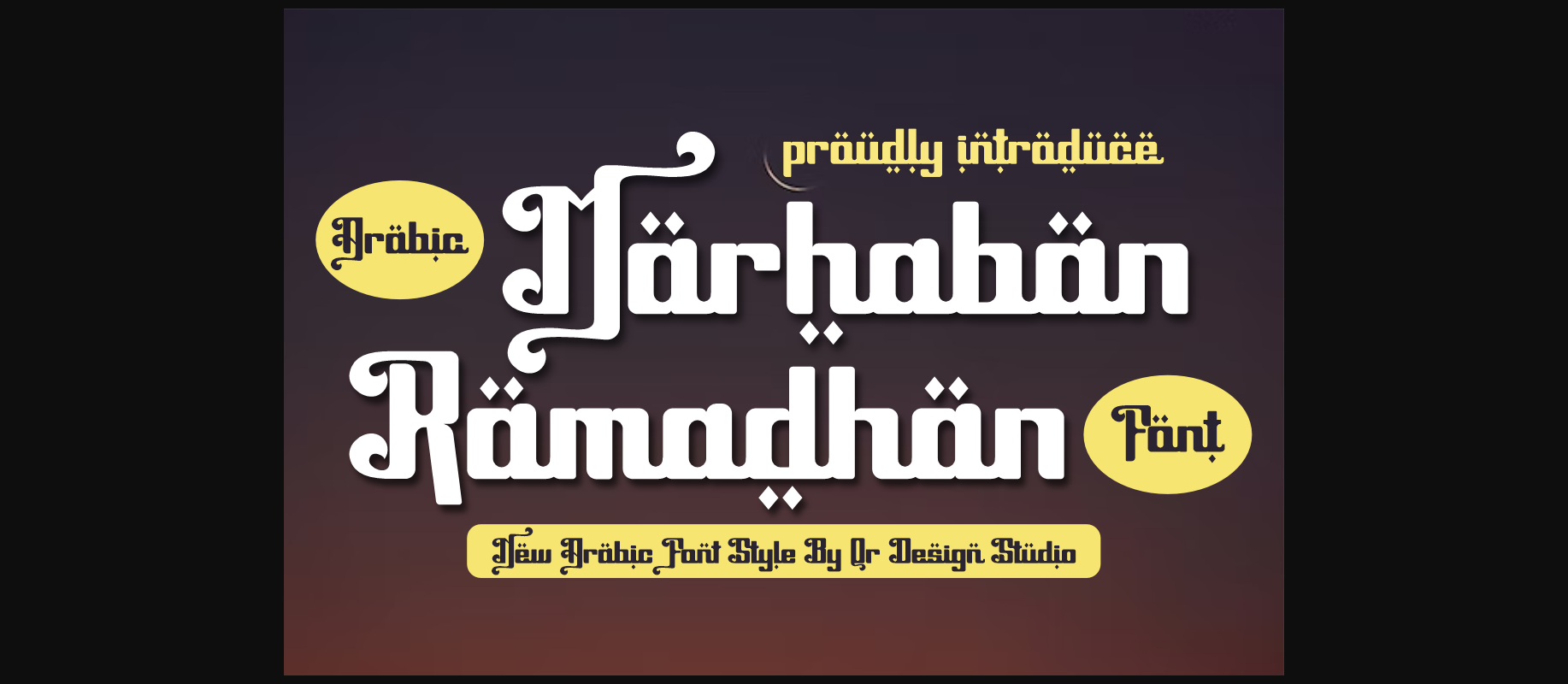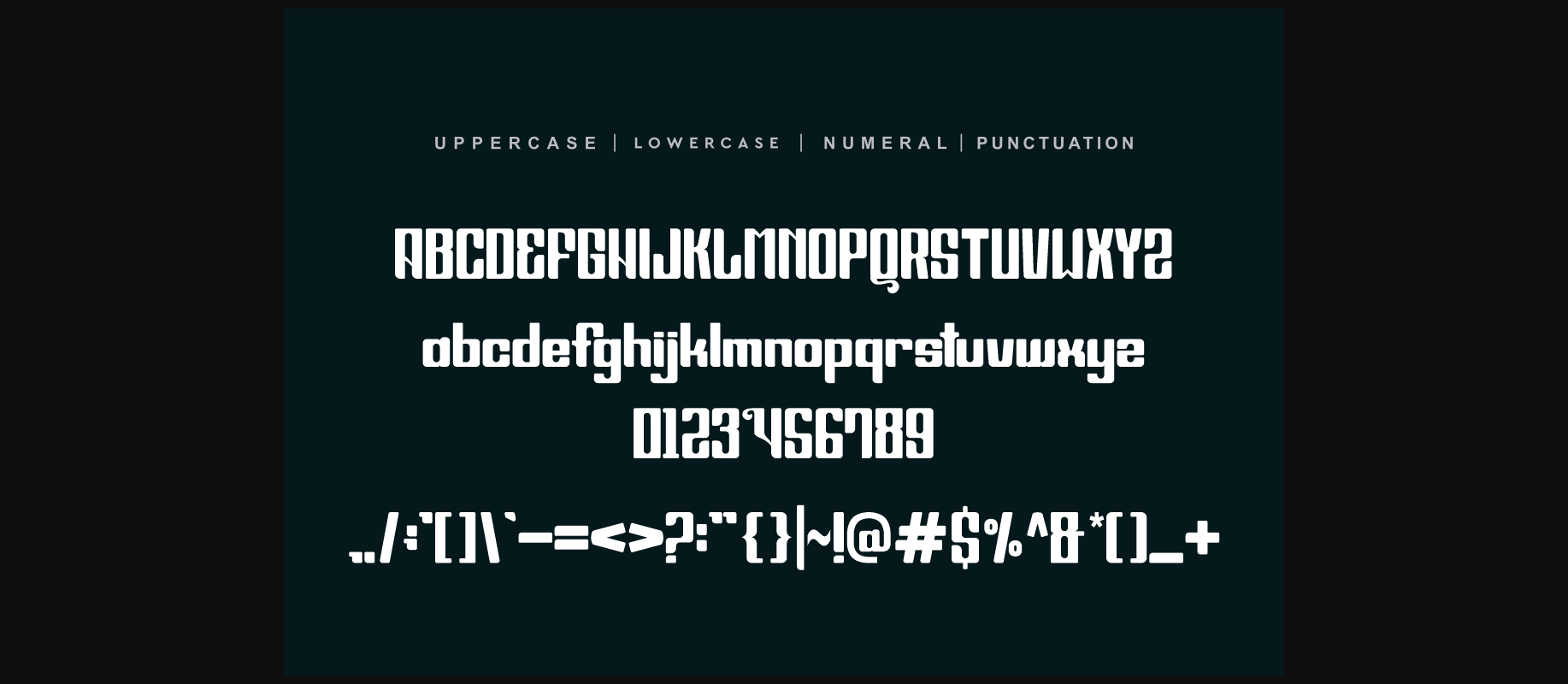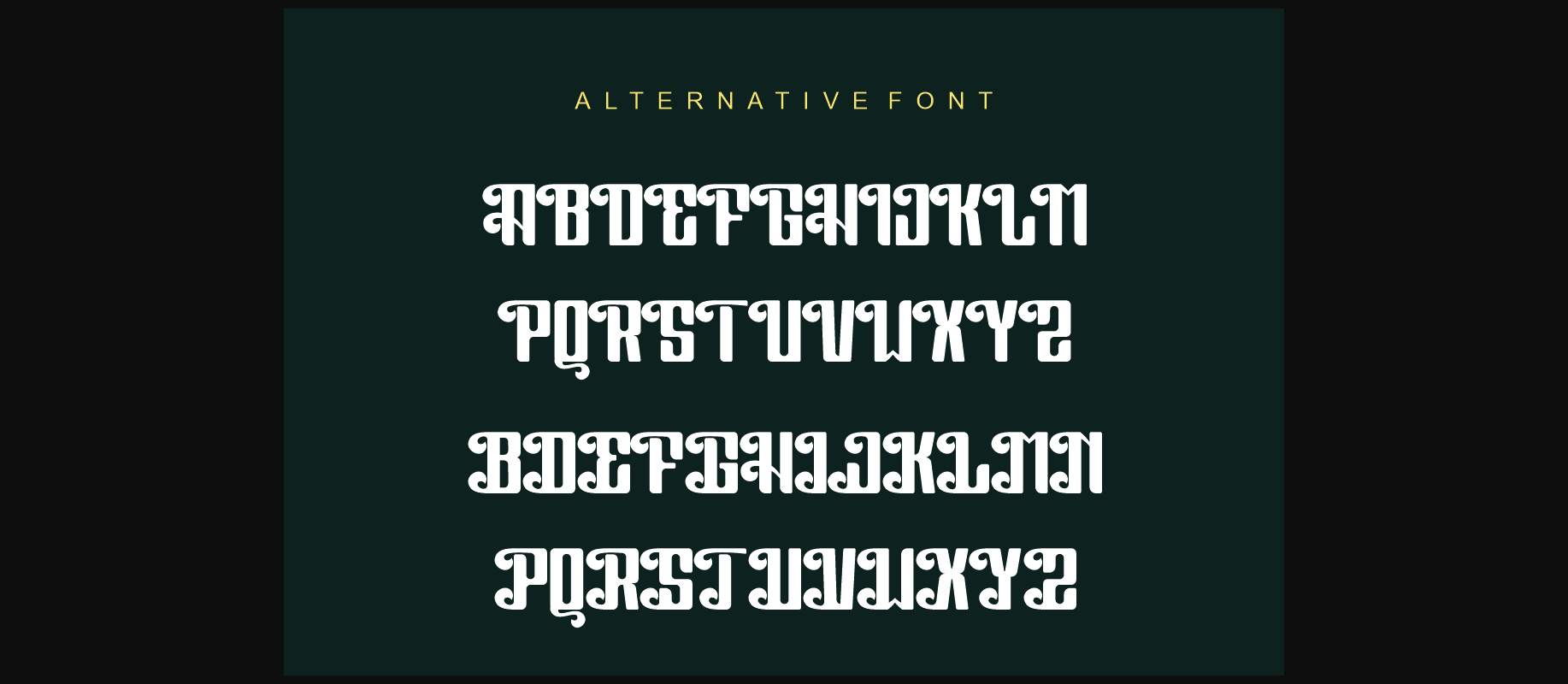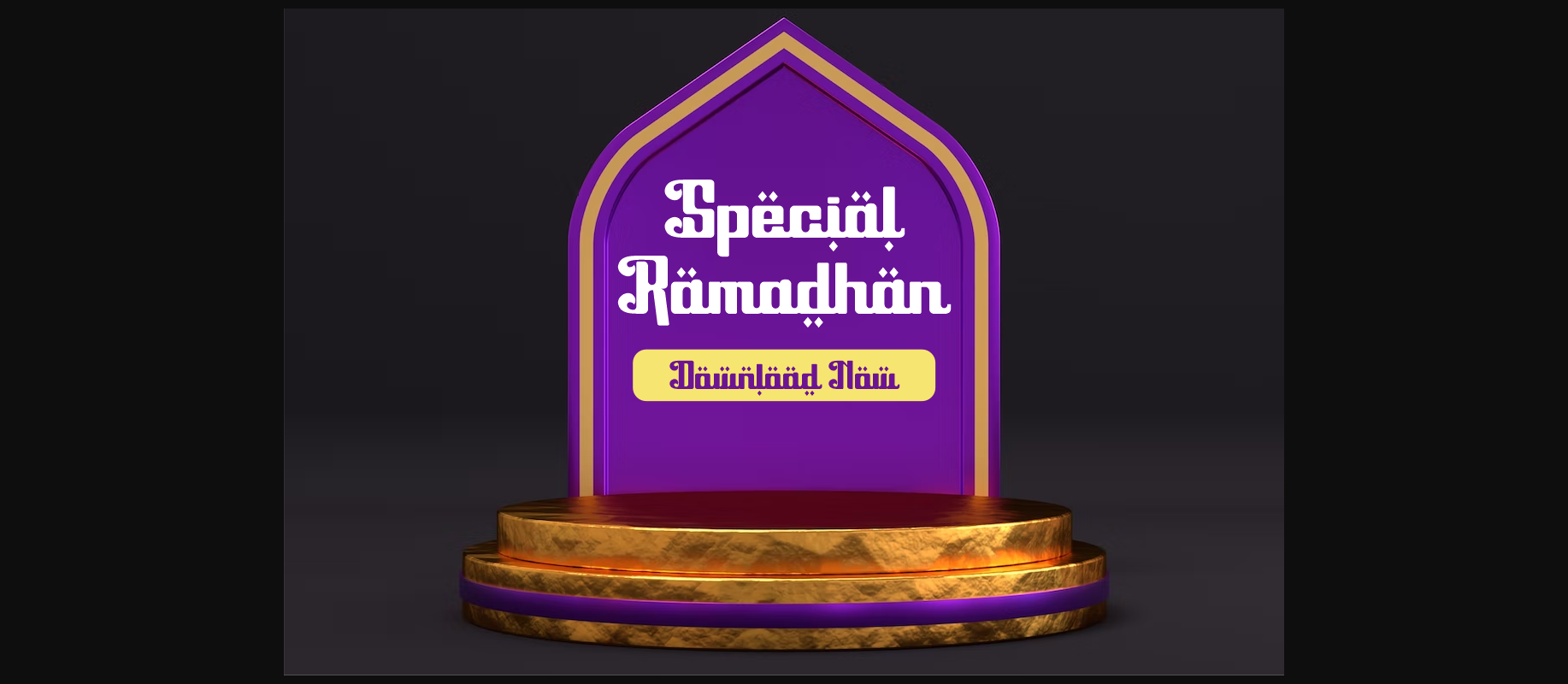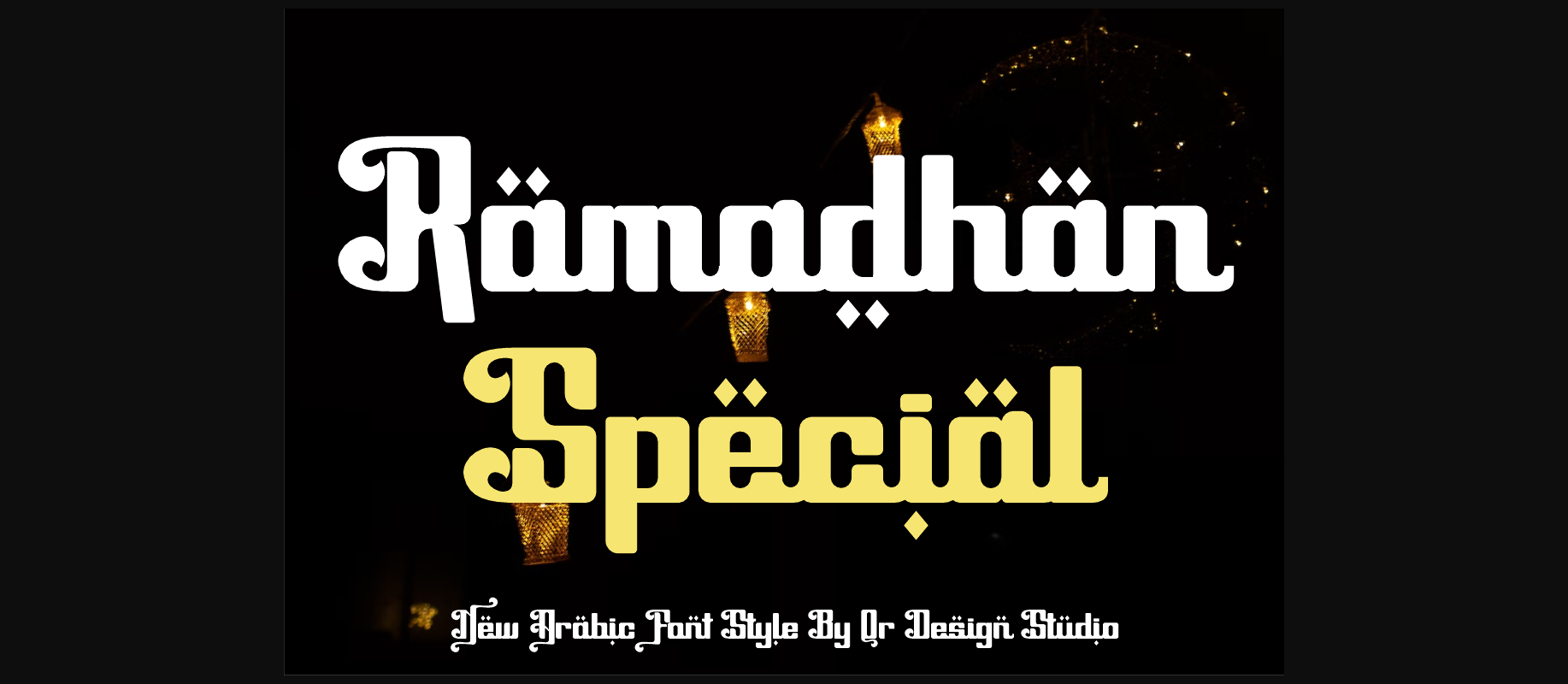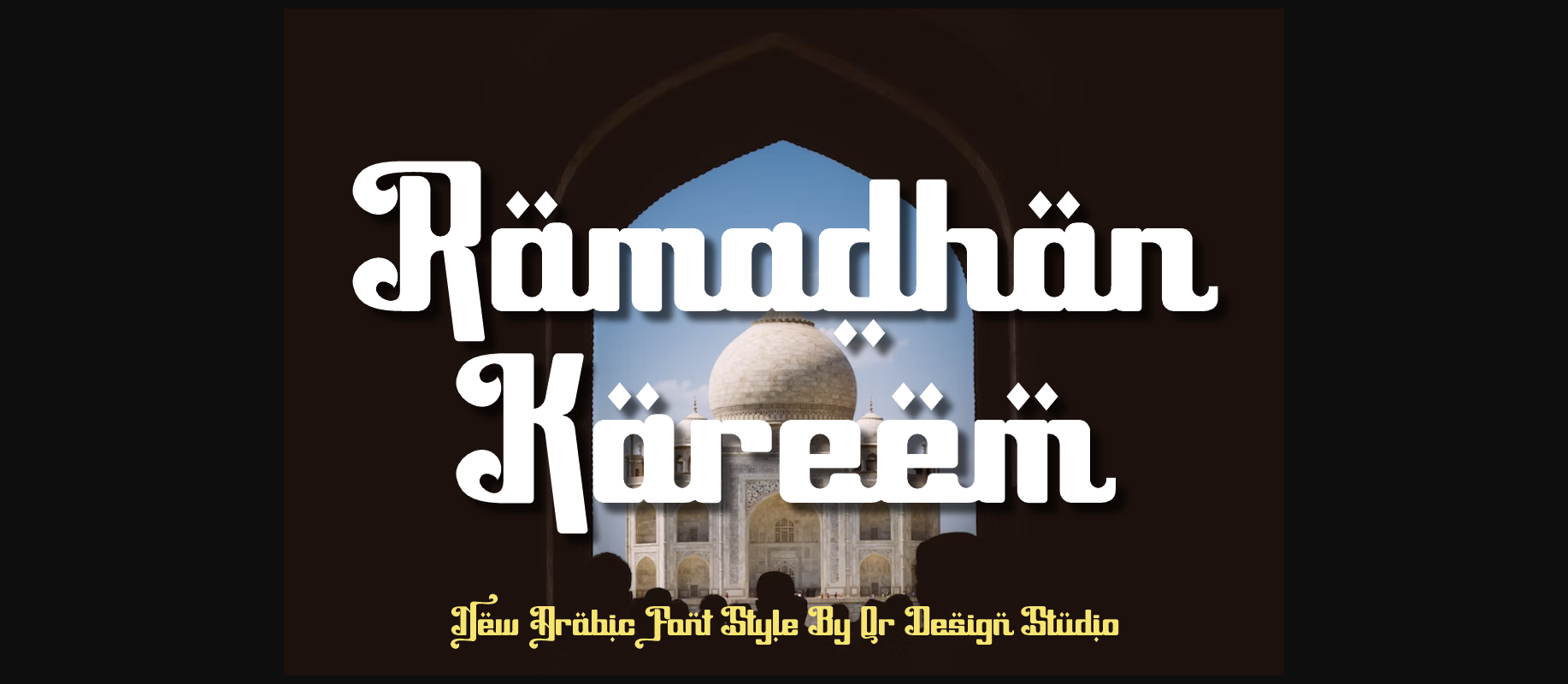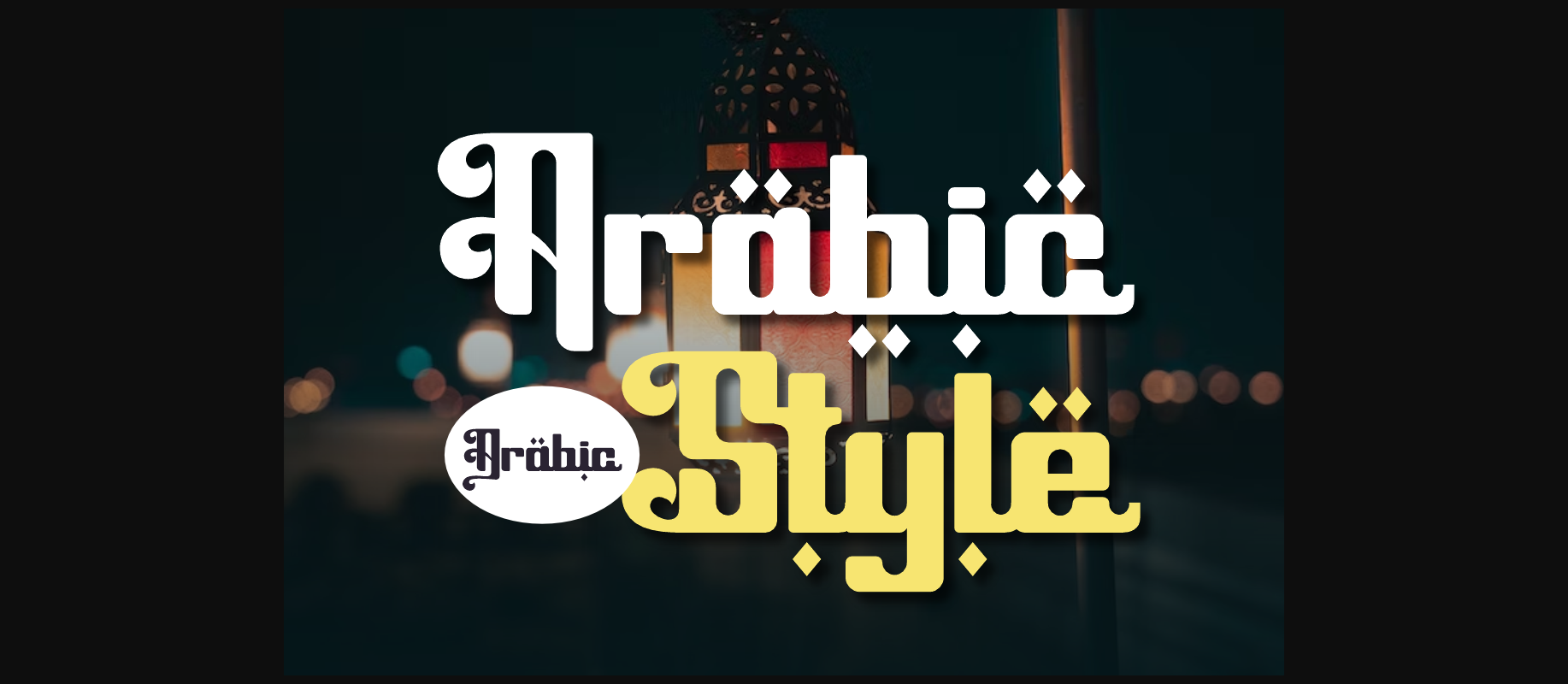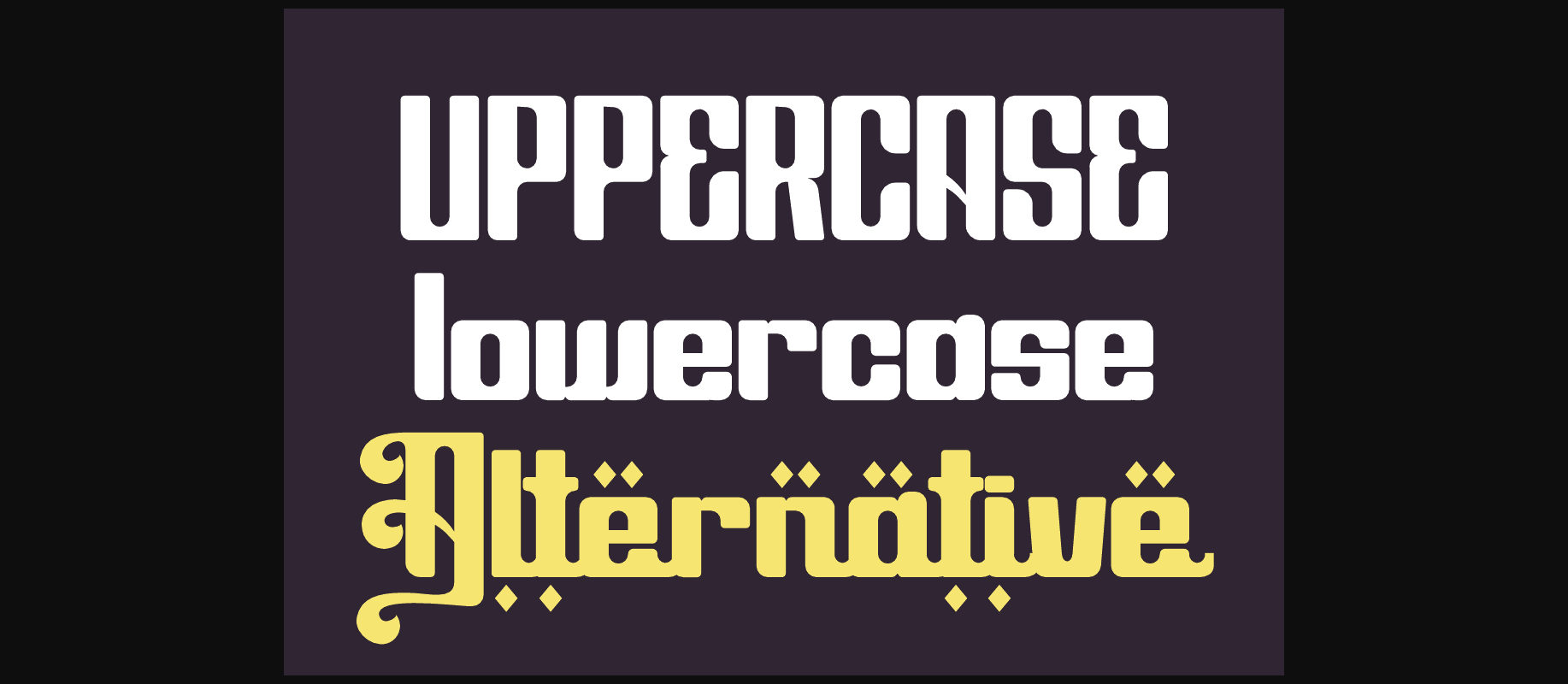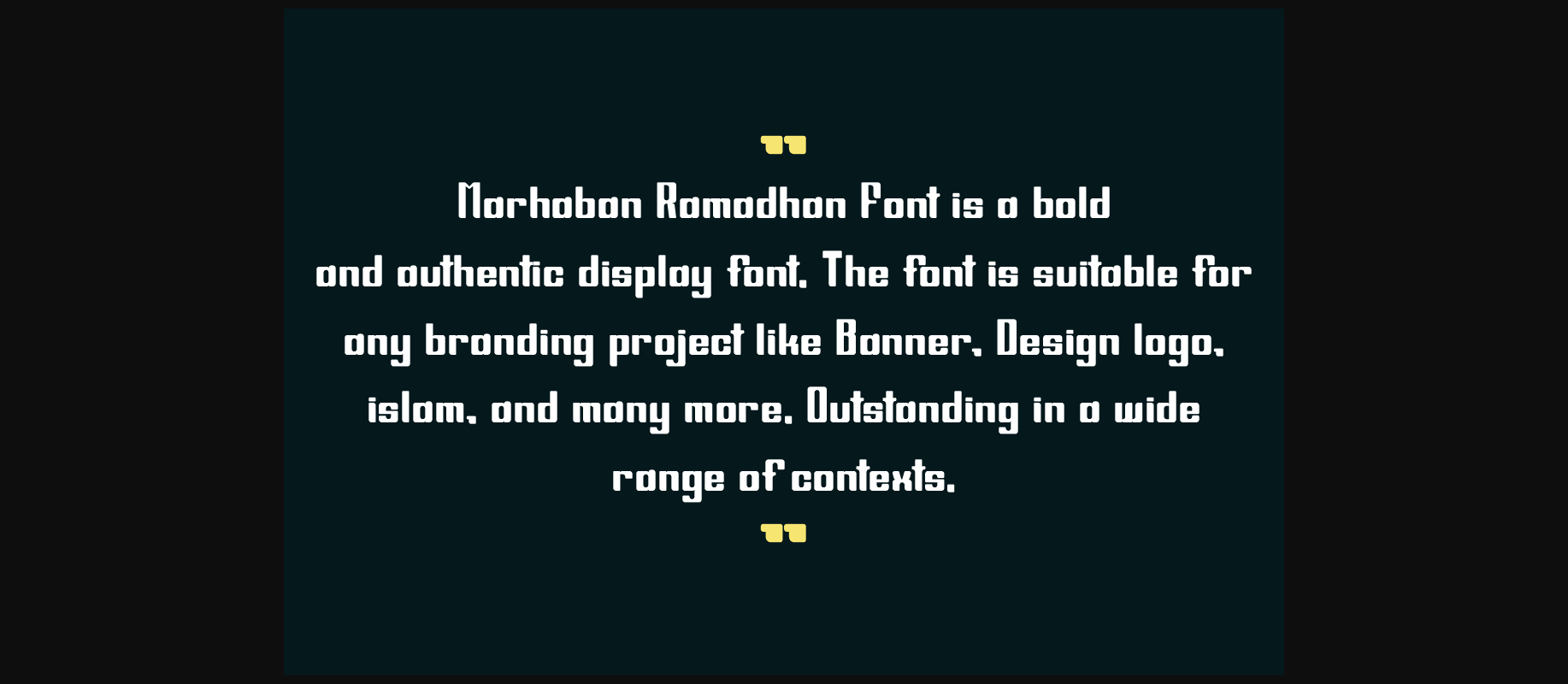
Marhaban Ramadhan Font
About Marhaban Ramadhan Font
Marhaban Ramadhan is a cool, oriental-style display font. Its unique and distinct characters will look great in a wide variety of contexts. This font is PUA encoded which means you can access all the glyphs and alternates with ease!